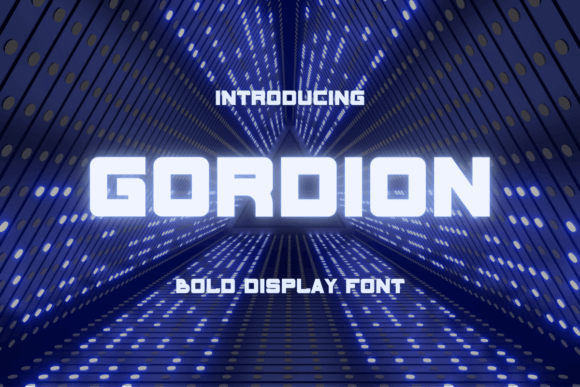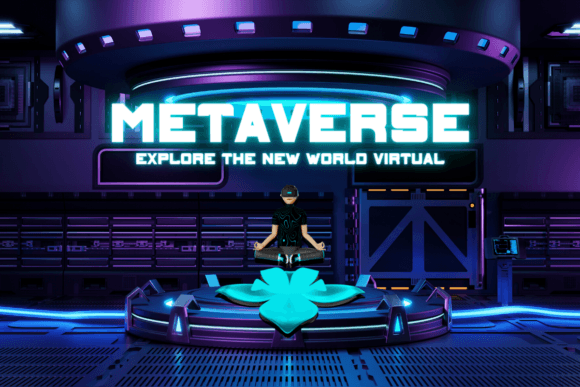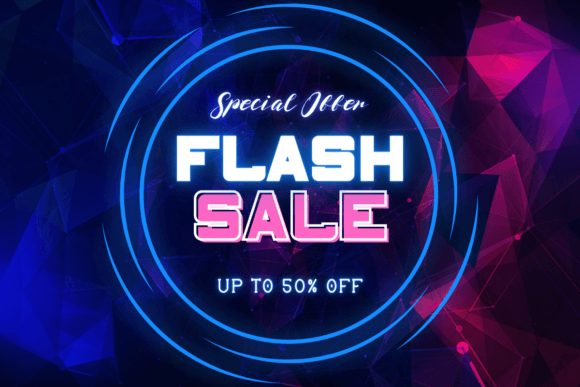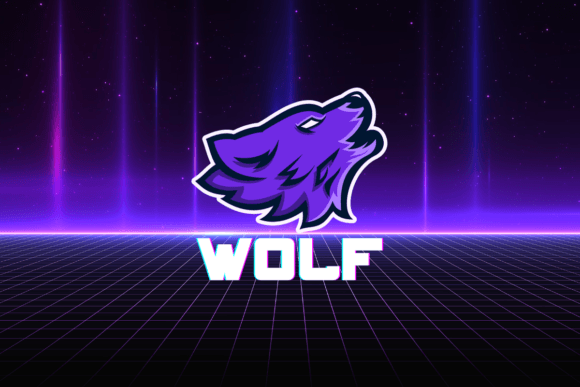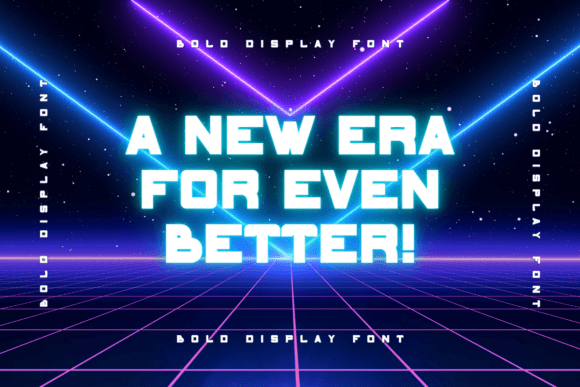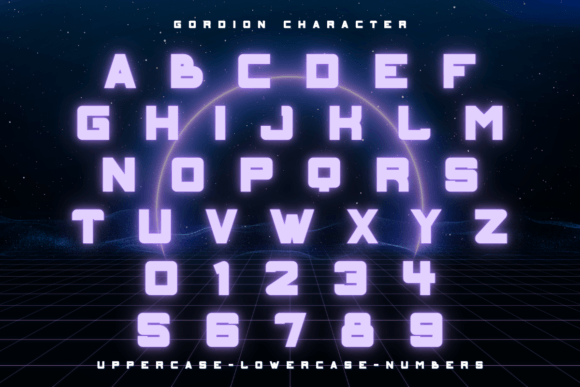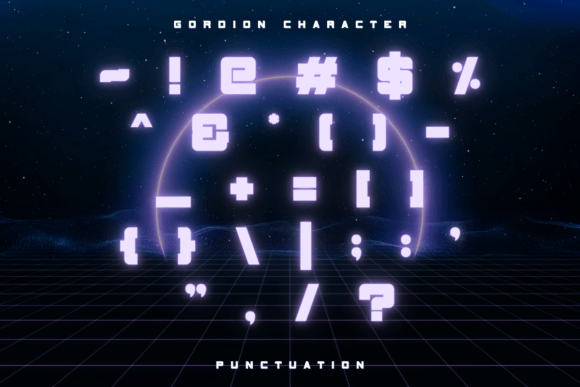
Unleash Your Creativity with the Perfect Font
Remember that moment when you stared at a blank canvas, waiting for inspiration to strike? The cursor blinks, and your mind goes blank. But then, a spark ignites, and you start envisioning a stunning logo, a captivating business card, or a visually appealing game interface. This is where the right font can make all the difference.
Introducing the Gordion Font, a modern Sans Serif font designed to elevate your creative projects. Whether you’re working on a logo, branding, business, photography, or game design, Gordion Font is the perfect companion to bring your ideas to life. Its clean lines, sleek curves, and versatility make it an invaluable asset for designers looking to add a touch of sophistication and style to their work.
With the Gordion Font, you’ll have the freedom to experiment, innovate, and push the boundaries of your creativity. Its value lies not only in its aesthetic appeal but also in its functionality, making it an essential tool for any designer looking to take their projects to the next level.
Gordion Font Key Features
- Font Family: Gordion Font comes in 2 font families, Regular and Bold.
- Size: Each font family has 7 weights ranging from Light to Extra Bold.
- Resolution: Supports high-resolution displays with crisp and clear typography at 300 DPI and above.
- Unique Characteristics: Gordion Font features a unique blend of modern and traditional elements, making it perfect for various design projects.
- Language Support: Supports a wide range of languages including Latin, Cyrillic, and Greek alphabets.
Gordion Font Review
As a designer, I’ve had the opportunity to work with various fonts, and I must say that Gordion Font is quite a gem. Here are some of its strengths and weaknesses.
- ✨ Elegant and refined design: Gordion Font has a beautiful, sophisticated look that’s perfect for high-end branding and design projects.
- ✨ High-quality rendering: The font renders beautifully at various sizes and resolutions, making it ideal for digital and print applications.
- ✨ Good legibility: The font is easy to read, even at smaller sizes, which is a must for any font.
- ⚠️ Limited character set: Gordion Font seems to be missing some special characters and symbols, which can be a pain for designers who need to use them.
- ⚠️ Not suitable for body text: While Gordion Font looks great as a heading font, it’s not the best choice for body text due to its small x-height and limited line spacing.
Gordion Font is a great addition to any designer’s toolkit, but it’s essential to understand its limitations and use it judiciously. When used correctly, it can add a touch of elegance and sophistication to any design project.
Gordion Font Practical Application Guide
Tips for Getting the Most Out of the Gordion Font
Here are some tips for getting the most out of the Gordion Font:
- Use the font in conjunction with bold or italic styles to add emphasis.
- Experiment with different font sizes to create visual hierarchy.
- Combine the font with other design elements to create a cohesive look.
The Gordion Font is commonly used in:
- Logo design
- Branding materials
- Print materials
- Digital marketing materials
Alternatives to Gordion Font
Merriweather is similar to Gordion Font in its classic and timeless design. However, it has a more traditional look and feel, making it suitable for formal and professional contexts.